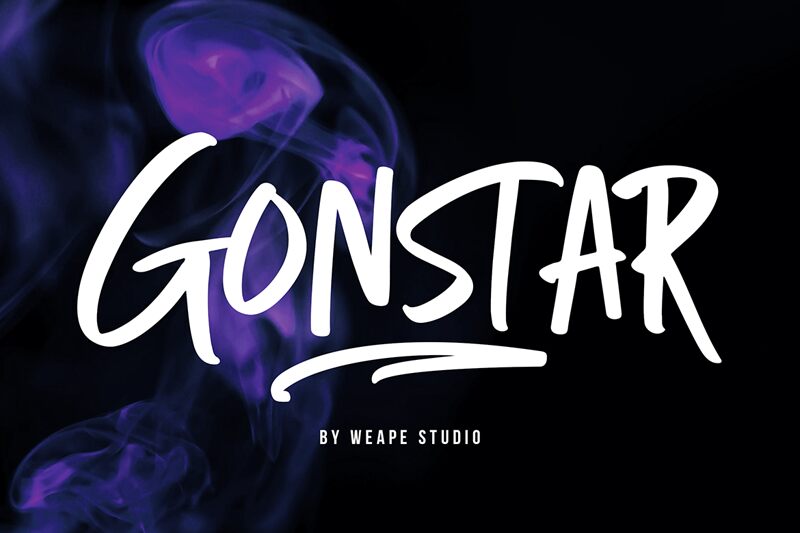
Gonstar, crafted by Weape Studio, is a captivating handwritten font that perfectly blends creativity with legibility. With its semi-light weight and marker style, this font adds a touch of uniqueness to any project. Ideal for invitations, greeting cards, and branding materials, Gonstar effortlessly infuses a charming handcrafted feel into your designs. Its delicate strokes create an eye-catching appeal while maintaining readability. Whether you're creating wedding stationery or designing playful logos, Gonstar's fluidity and organic charm make it an ideal choice for various projects that demand a touch of whimsy and elegance.